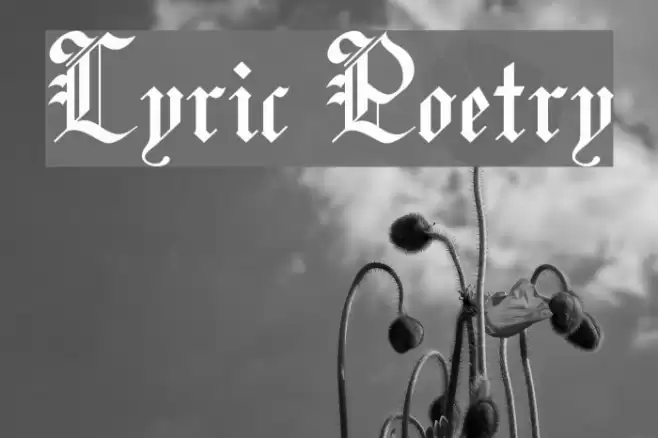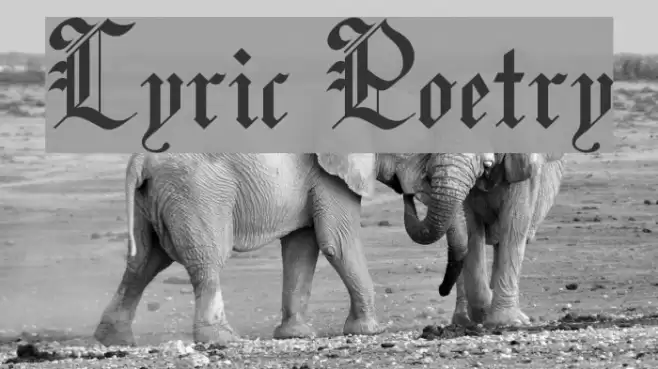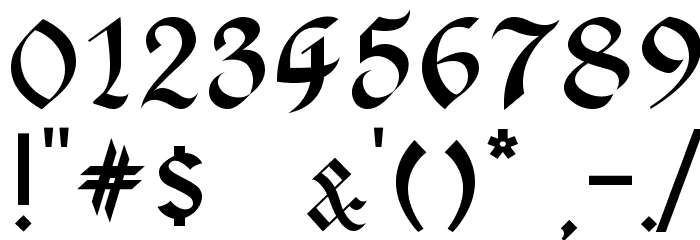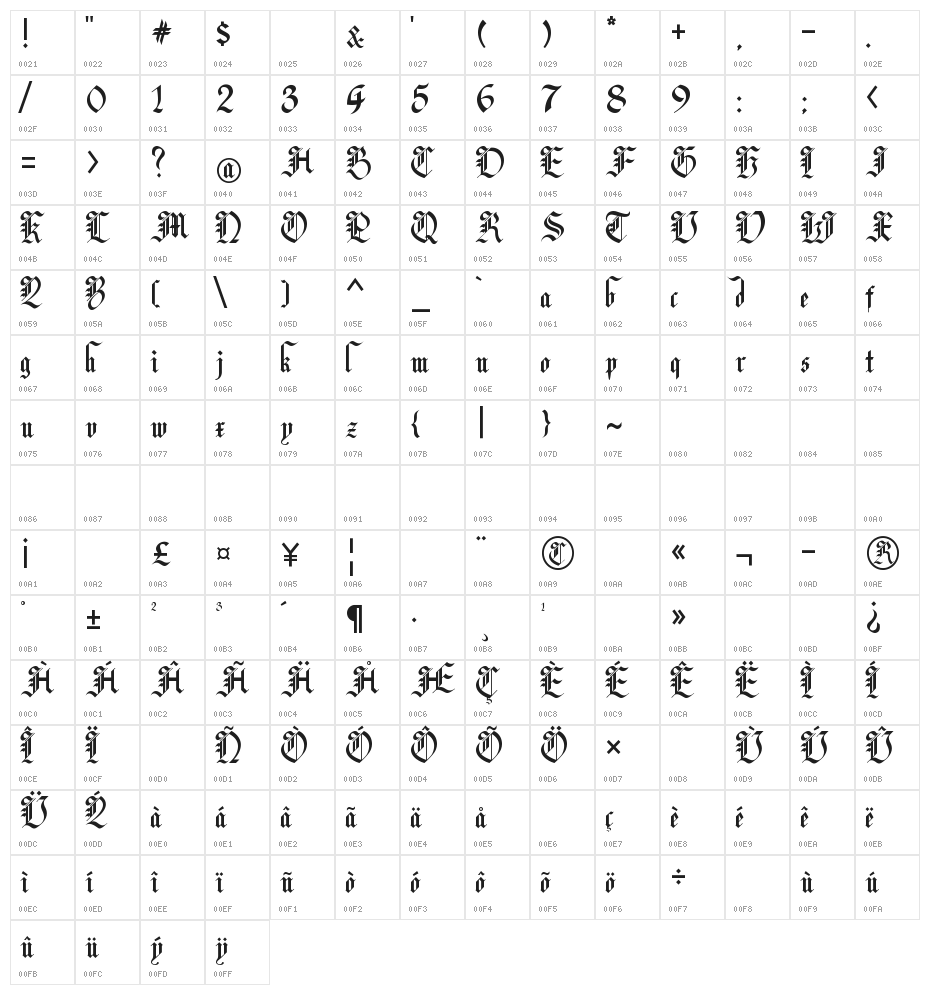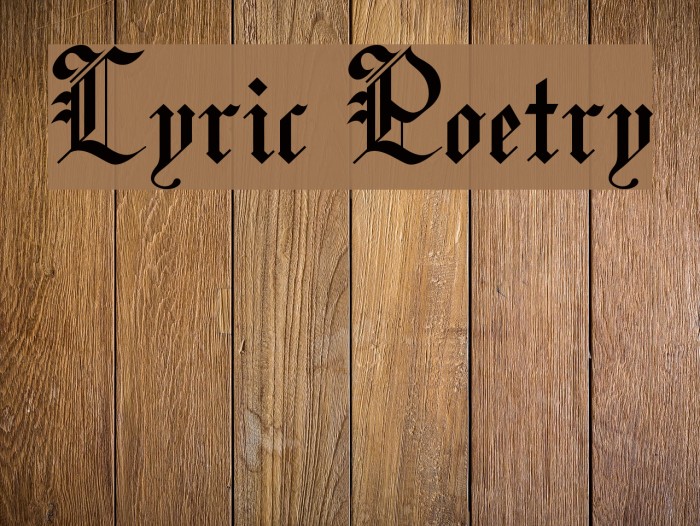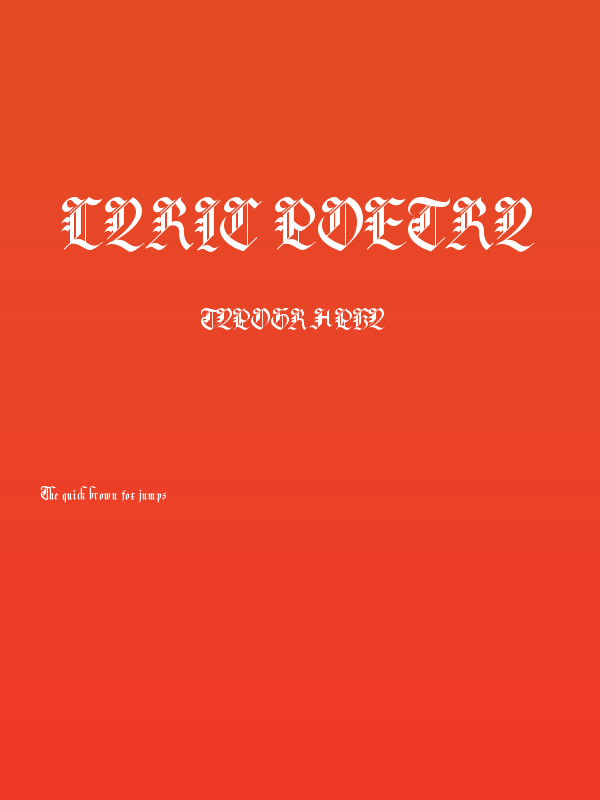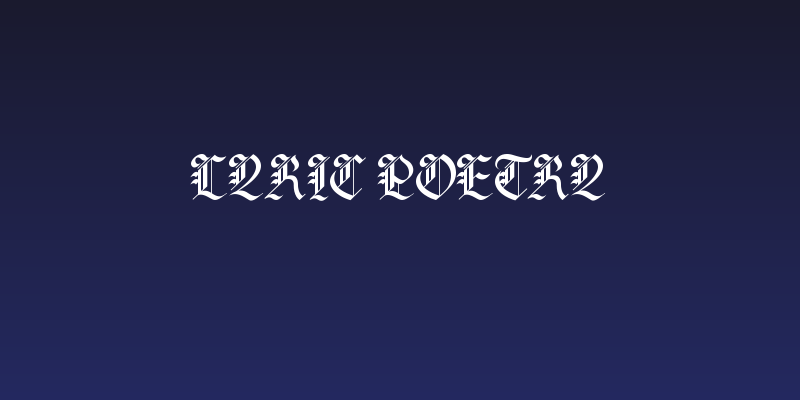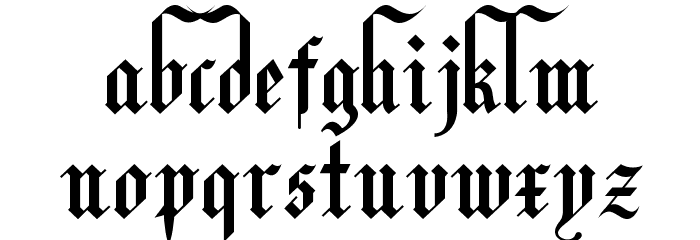
Lyric Poetry Font
Lyric Poetry Description
This font features a classic blackletter style, characterized by its ornate and intricate design. The uppercase letters are bold and dramatic, with sharp angles and elaborate flourishes that give a sense of historical elegance. The lowercase letters maintain a consistent style, with a slightly more restrained yet still decorative appearance. The numerals are distinct and maintain the overall gothic aesthetic, making them easily recognizable. Special characters are designed to complement the letterforms, adding to the cohesive look of the font. This typeface evokes a sense of tradition and formality, often associated with medieval manuscripts and historical documents.
A classic blackletter font with ornate, dramatic letterforms and a historical aesthetic from Gothic fonts.
- Font: Lyric Poetry
by yiningchen - Weight: Regular
- Proposed Projects: Ideal for projects requiring a historical or gothic touch, such as book covers, certificates, or themed event invitations.
- Overall Style: Vintage
- Use Case: Headlines, Logos, Decorative purposes